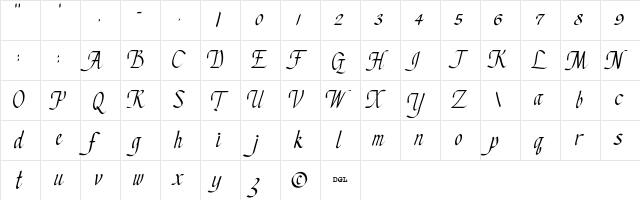
Chancery Cursive - DGL Italic
Complete Chancery Cursive - DGL Italic glyph index. Displaying only characters natively supported by Chancery Cursive - DGL Italic font.
Design Context for Chancery Cursive - DGL
Chancery Cursive - DGL flows with the natural rhythm of handwritten lettering, making it ideal for designs that call for warmth and personal expression.
Font Pairing: Combine Chancery Cursive - DGL with a simple geometric sans for maximum contrast - the tension between flowing curves and clean structure is a classic typographic pairing.
Pro Tip: Use Chancery Cursive - DGL for short runs of text - names, titles, or taglines. Extended body copy in script faces tires the eye quickly.